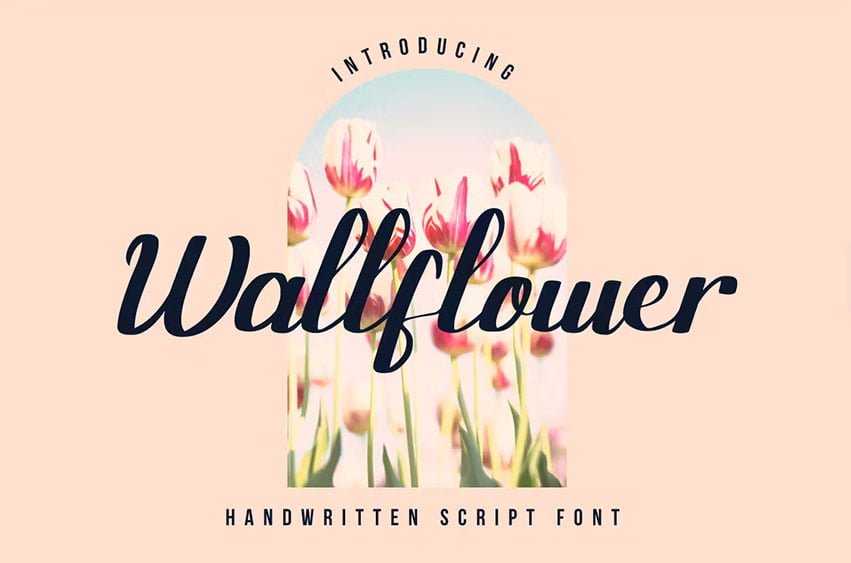
Walflower Font is a lovely and delicate script font that exudes elegance and class. This font was particularly crafted for those who need a beautiful and refreshing look to their designs.